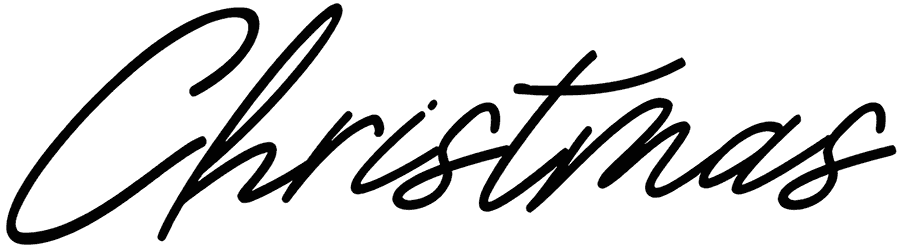
Christmas Font
Would you like to present a contemporary design with casual and chic text? This signature font would be a sweet offer to make this mood for your novel project. As a Christmas font, Christmas with almost A-Z characters can serve as a matchable item for formal or informal layouts such as logotypes, invitation cards, tattoos, flyers, and many others the same.